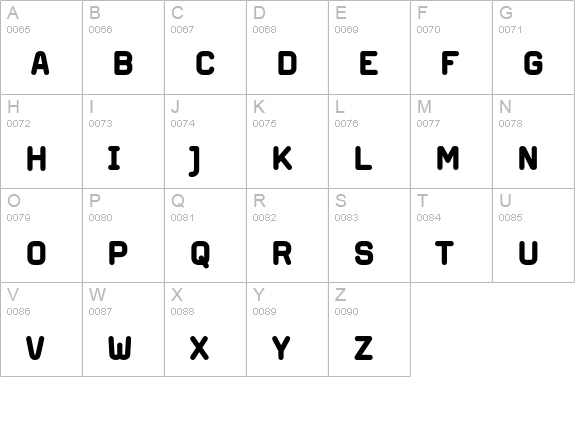
MagdaClean-Black Font Details
MagdaClean-Black is a maximum-weight, dramatic variant in the MagdaClean typeface family \xE2\x80\x94 well suited to maximum-impact headlines, posters, and packaging.
Introducing MagdaClean-Black font, a stunning typeface that effortlessly merges contemporary design with timeless elegance. This font exudes a sense of sophistication and professionalism, making it the perfect choice for a wide range of projects. With its bold and commanding presence, MagdaClean-Black font demands attention and leaves a lasting impression. Its clean lines and sleek curves enhance legibility, ensuring that your message is delivered with clarity and impact. Whether used for headlines, logos, or body text, this font adds a touch of refinement to any design. One of the most remarkable features of MagdaClean-Black font is its versatility. It seamlessly adapts to various design styles, effortlessly complementing both modern and classic themes. This font's bold weight and distinctive letterforms make it particularly well-suited for branding projects, where it can elevate your visual identity and establish a strong brand presence. And the best part? MagdaClean-Black font is available for free! You can easily download this remarkable typeface from FontsMarket.com, allowing you to add a touch of elegance to your designs without breaking the bank. Embrace the power of this font and unleash your creativity with its limitless possibilities. So, whether you're a graphic designer, a creative professional, or simply someone looking to elevate their visual communication, MagdaClean-Black font is the perfect choice. Its timeless style, impeccable legibility, and the fact that it is freely available for download make it an invaluable addition to your font library. Discover the endless possibilities of MagdaClean-Black font and let your designs shine with sophistication and style.